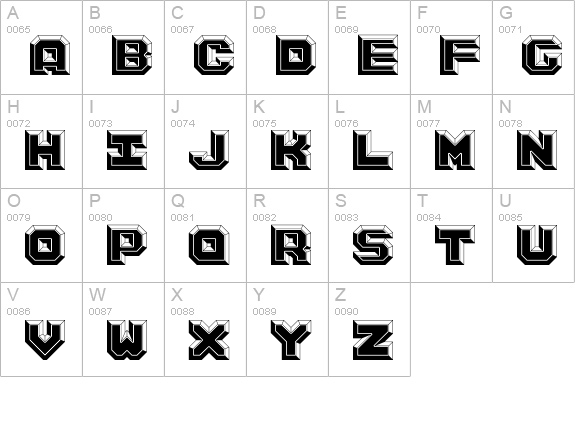
ArgentumBlack Font Details
ArgentumBlack font is a sleek and modern typeface that exudes sophistication and elegance. Its sharp lines and bold curves make it perfect for creating eye-catching designs that demand attention. The versatile nature of this font allows it to be used in a variety of projects, from branding to editorial design. What sets ArgentumBlack font apart is its unique combination of classic elegance and contemporary flair. Whether you're designing a logo, website, or poster, this font will add a touch of refinement to your work. Best of all, ArgentumBlack font is available for free download at FontsMarket.com. So go ahead and elevate your designs with this stunning typeface today!